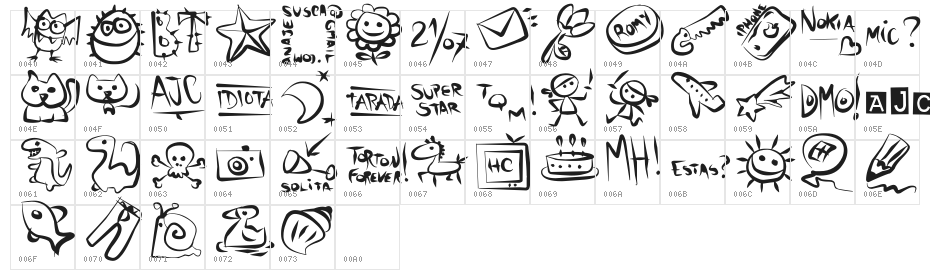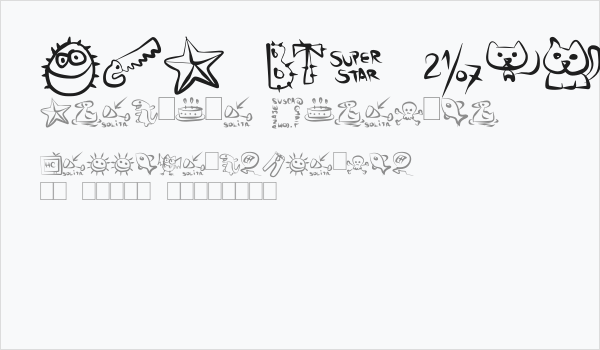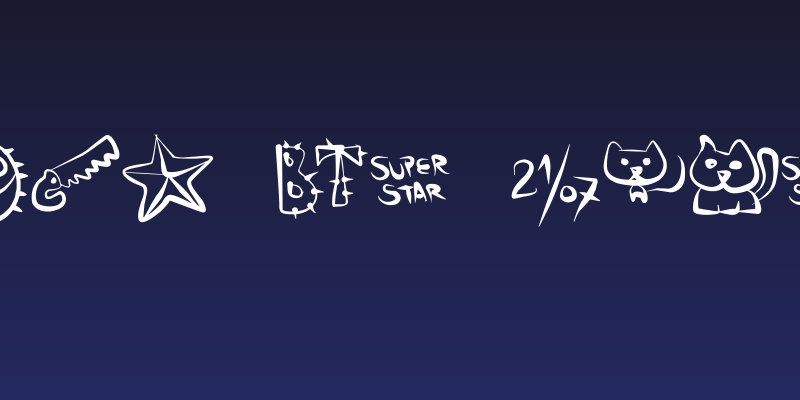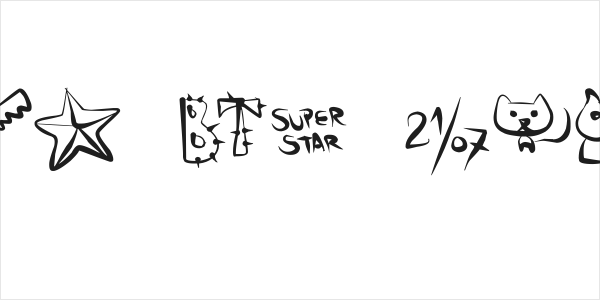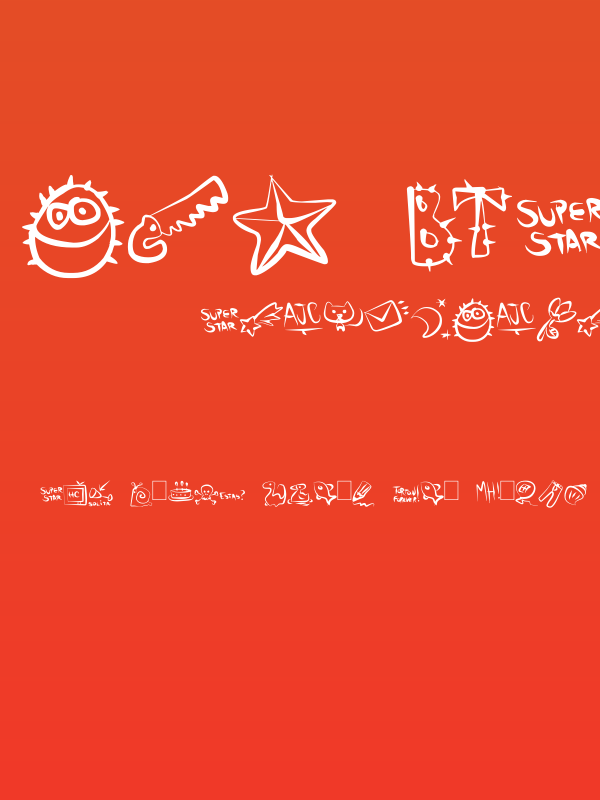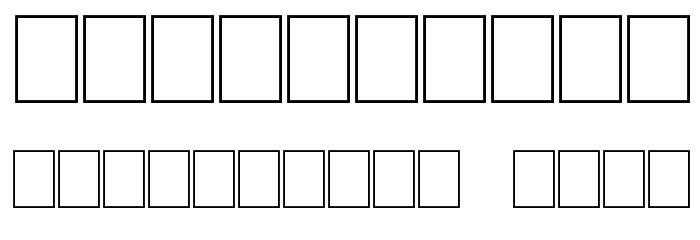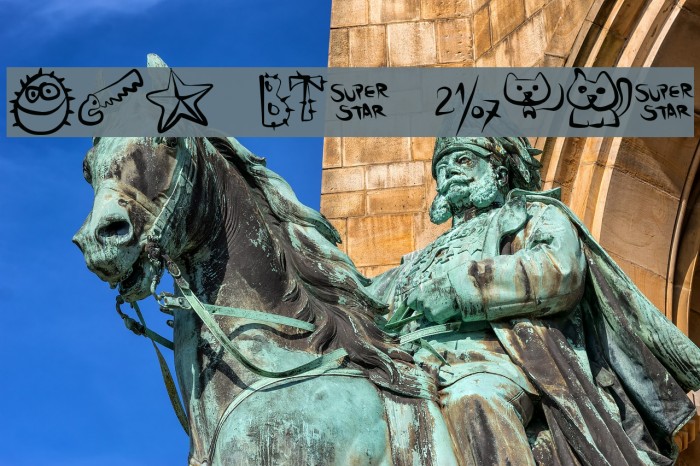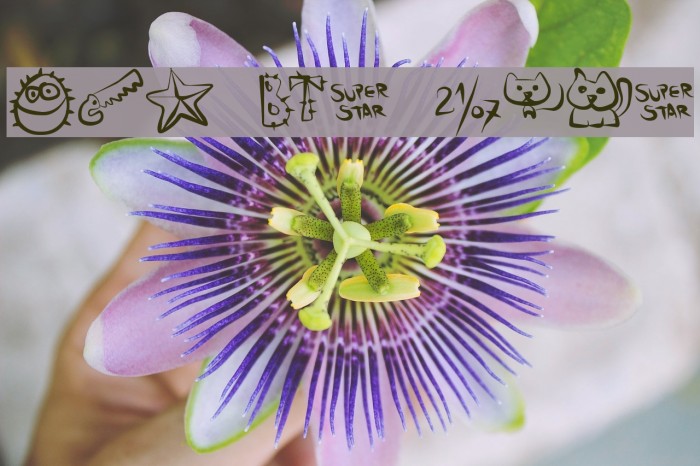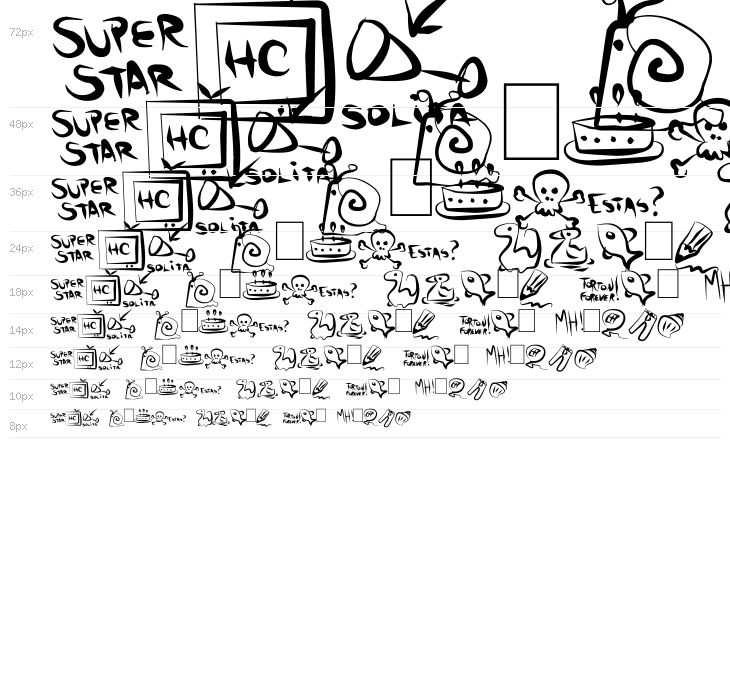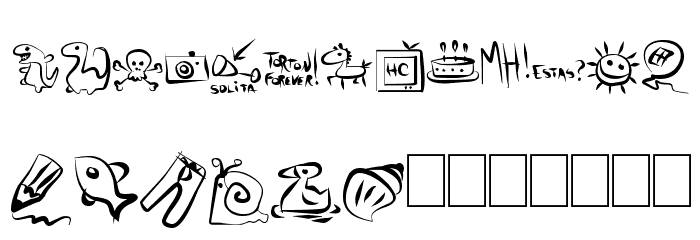
AJC BT FONT Font
A playful, hand-drawn dingbat font featuring whimsical doodles, cartoon characters, quirky symbols, and casual handwritten elements. The glyphs are highly decorative, with a sketchy, informal style and varying line thicknesses. The font conveys a fun, spontaneous, and youthful vibe.
| Overall Style | Decorative, Playful, Hand-drawn |
| Use Case | Logos, Headlines, Posters, Illustrative projects |
| Proposed Projects | Children's books, party invitations, greeting cards, playful branding, scrapbooking, social media graphics. |